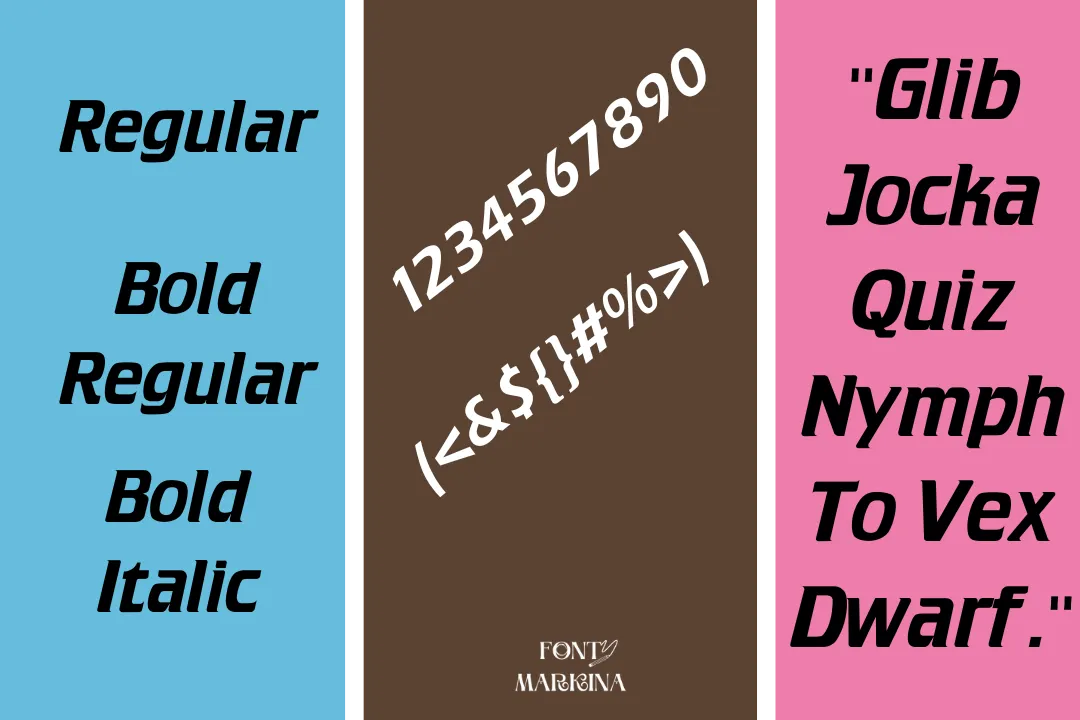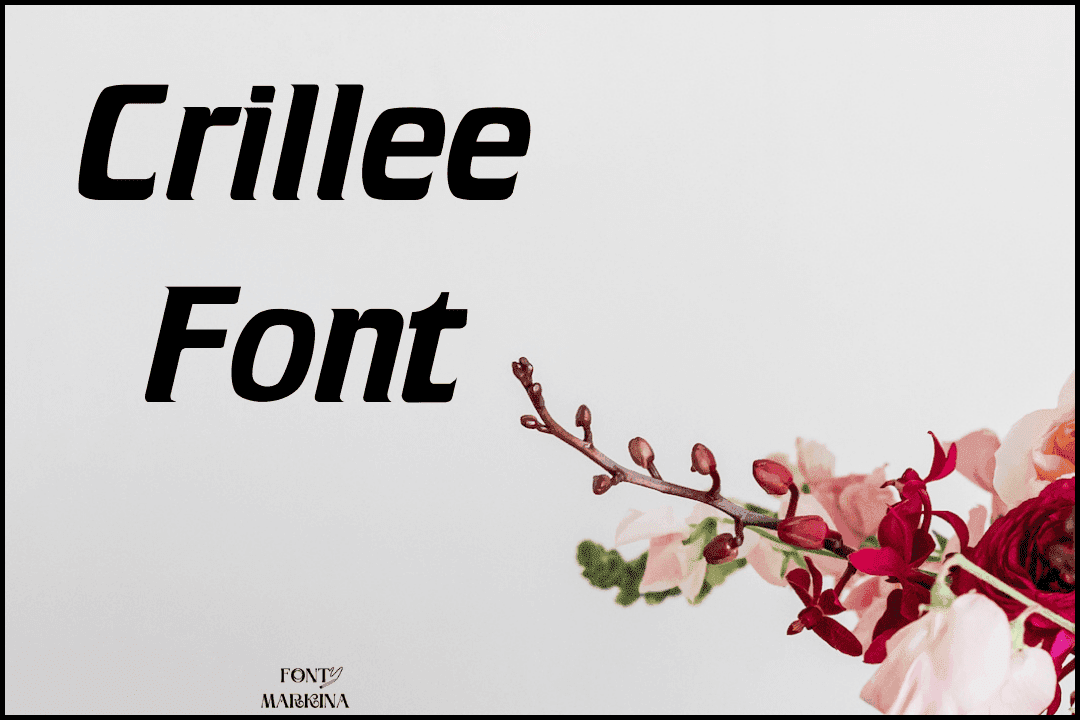
Hi viewers! we come with a very fascinating typeface known by the name Crillee Font. This texture falls in the category of display family of fonts. Peter O’Donnell and Vince Whitlock are two brilliant mind designers who create this typography.
This bold features texture is famous because of its two extraordinary unique styles one is regular and the second one is italic. This typography is obtainable in both Opentype and Truetype formats. Its similar Alternate Gothic Font is usually best for a variety of designs.
The generator of this texture is one of the most classic features that help to create text graphic designs. This family has 100 stylish characters that increase its worth.
Usage of Crillee Font
This texture has different characters and styles, so it is perfect for a vast variety of locations. In the field of graphic design, you can use Crillee Font for wonderful styles such as the development of different games, brand logos designs, and many more.
Mostly, it is used for road signs and labels. You can also pick out this typeface and used it in the clothes industry for beautiful designs of dresses. For video and photo editing, this family is well suitable. By making pairing this texture with Audiowide Font is very powerful for designs.
Crillee Font View
What is the type of Crillee Font?
A display family that comes with two styles and more than one hundred stunning textures.
Who is the developer of Crillee Font?
Peter O’Donnell and Vince Whitlock are intelligent designers who created this family.
What is the generator tool of Crillee Font?
This typography intricacy is a classic generator tool that is basically used for different text-based graphic designs.